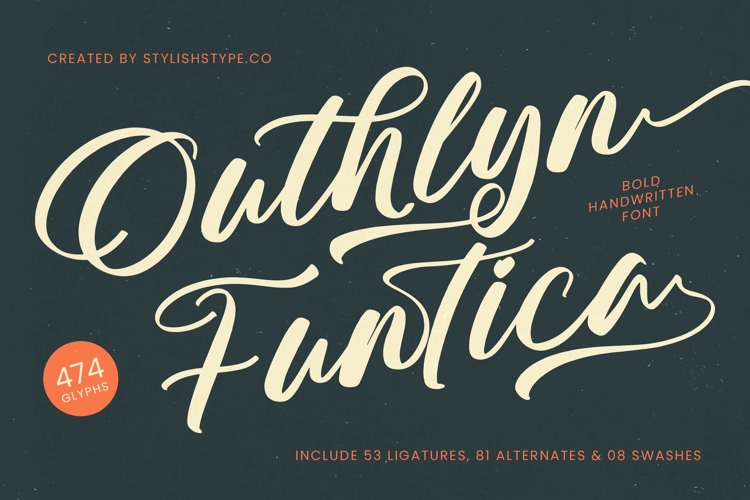
Outhlyn Funtica - Bold Handwritten Font
Outhlyn Funtica - Bold Handwritten Font is a dynamic, high-impact script designed to command attention. This typeface merges the spontaneity of hand-lettering with the polished execution of professional typography, featuring lush, flowing connections and a powerful, weighted presence. Its vintage yet contemporary aesthetic makes it perfect for statements that require both warmth and authority, ensuring your design stands out instantly with maximum legibility.